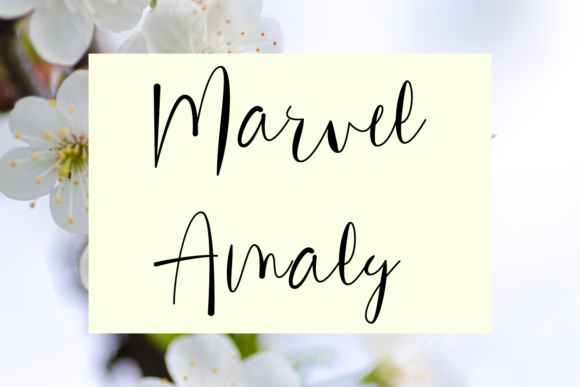
Introduction to Marvel Amaly Font
Have you ever been working on a creative project, staring at a blank canvas, and suddenly, the perfect font pops into your mind? For designers, this moment is like finding a hidden treasure – it sets the tone for the entire project. And that’s exactly what happened when we discovered the Marvel Amaly Font.
This delicate and relaxed handwritten font is a game-changer for any design project. With its joyful and versatile style, Marvel Amaly Font is the perfect addition to any creative endeavor. Whether you’re working on a logo, a social media graphic, or a marketing campaign, this font will bring a touch of elegance and sophistication to your design.
What sets Marvel Amaly Font apart is its high-quality design, making it a valuable resource for designers. With a transparent background and a wide range of applications, this font is a must-have for any design project. And the best part? You can download it for free, making it an accessible design resource for creatives of all levels.
Key Features of Marvel Amaly Font
- High-quality design resource with a unique, elegant aesthetic, suitable for creative projects.
- Features a transparent background, allowing for effortless layering and customization in design compositions.
- Includes a range of characters, including uppercase and lowercase letters, numbers, and punctuation marks, making it a versatile design resource.
- Resolution-independent, ensuring crisp and clear text rendering at various sizes and resolutions.
- Designed to be highly legible, even at small font sizes, making it ideal for use in headings, titles, and other display typography.
Honest Review: Marvel Amaly Font
I recently stumbled upon the Marvel Amaly Font, and I must say, it’s been a game-changer for my creative projects. As a designer, I’m always on the lookout for high-quality design resources that can elevate my work. The Marvel Amaly Font definitely delivers.
Here are some things that work well: ✨
- Unique and elegant design: The font’s clean lines and sophisticated style make it perfect for high-end branding and packaging projects.
- High-quality vectors: The font files are crisp and clear, making it easy to scale and manipulate the text without losing any quality.
However, there are a few limitations: ⚠️
- Transparency issues: I’ve found that the font can be a bit finicky when it comes to transparent backgrounds, which can be a problem for designers who work with complex designs.
- Limited font sizes: The font only comes in a few sizes, which can limit its versatility in certain design projects.
Overall, I’m really impressed with the Marvel Amaly Font. Its high-quality design and free download make it an excellent resource for designers. While it has some limitations, I believe it’s still a great addition to any design library.
Tips for Getting the Most Out of Marvel Amaly Font
For optimal results, use the Marvel Amaly Font in combination with other high-quality design resources. Experiment with different font sizes, colors, and layouts to achieve the desired effect. You can also use the font in conjunction with other design elements, such as images and graphics, to create a cohesive and visually appealing design.
The Marvel Amaly Font is a versatile design resource that can be used in a variety of creative projects, including logos, branding materials, and marketing campaigns. Its high quality and transparent background make it a great choice for presentations, documents, and websites.